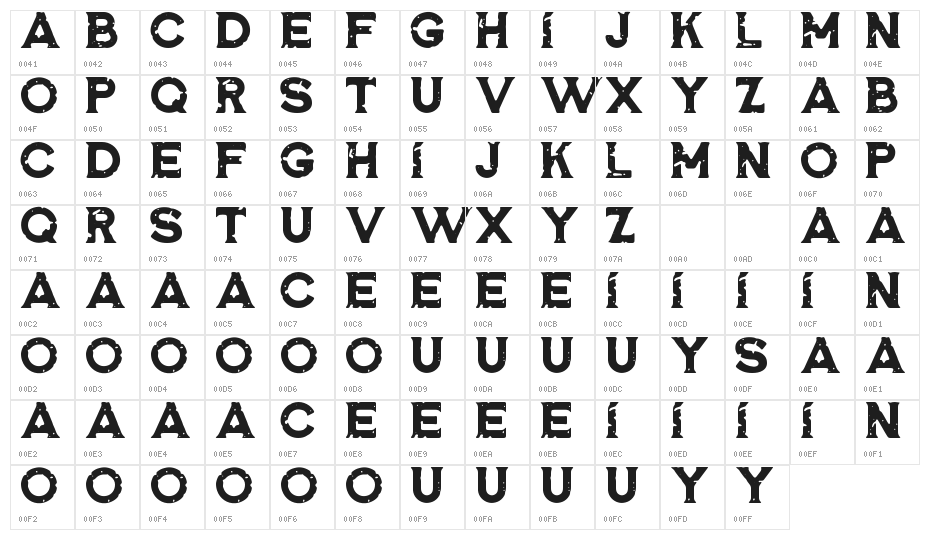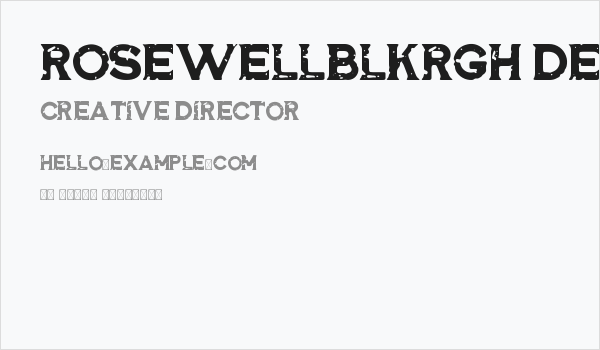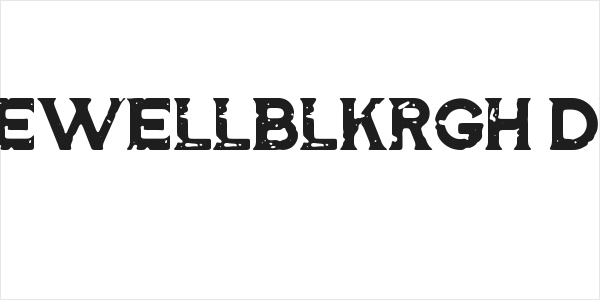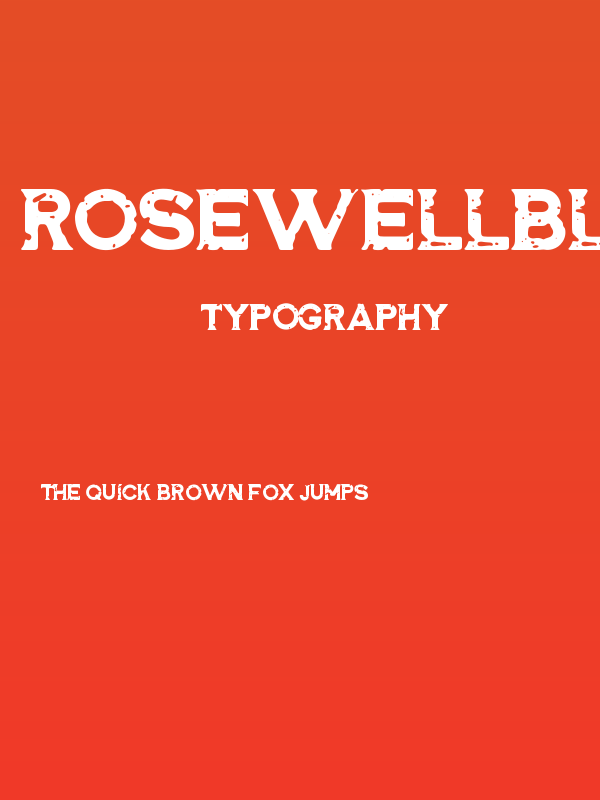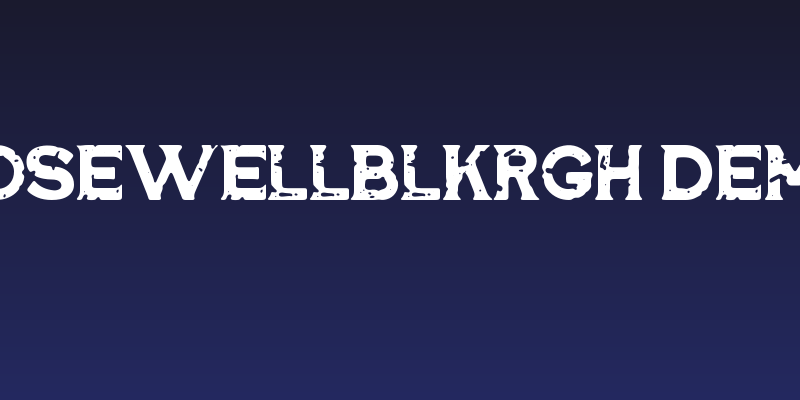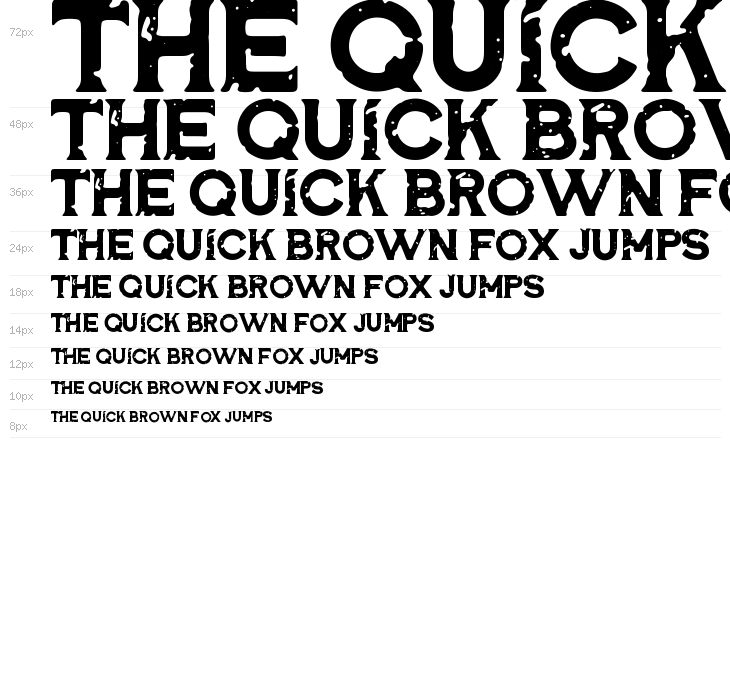
RosewellBLKRGH Demo Font
RosewellBLKRGH Demo Description
This font features a bold and rugged design with a distressed texture, giving it a vintage and worn appearance. The uppercase letters are prominently displayed with thick strokes and slight irregularities that add character and depth. The overall style is reminiscent of old signage or typewriter fonts, making it ideal for projects that require a touch of nostalgia or a handcrafted feel. The font's unique texture and bold presence make it stand out, suitable for creating eye-catching headlines or logos that demand attention.
Overall StyleVintage
Proposed ProjectsIdeal for vintage-themed posters, logos, branding materials, and signage that require a bold and textured look.